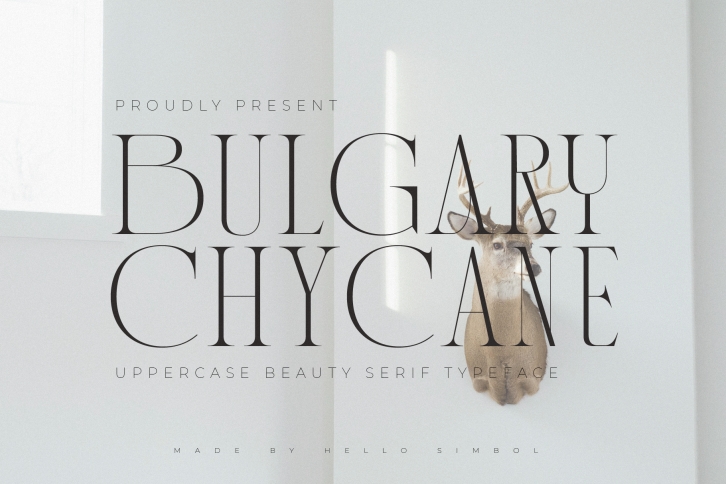
Bulgary Chycane is a beautiful and modern serif font. It will look gorgeous on social media posts, fashion magazines, branding materials, business cards, advertisements, and more.